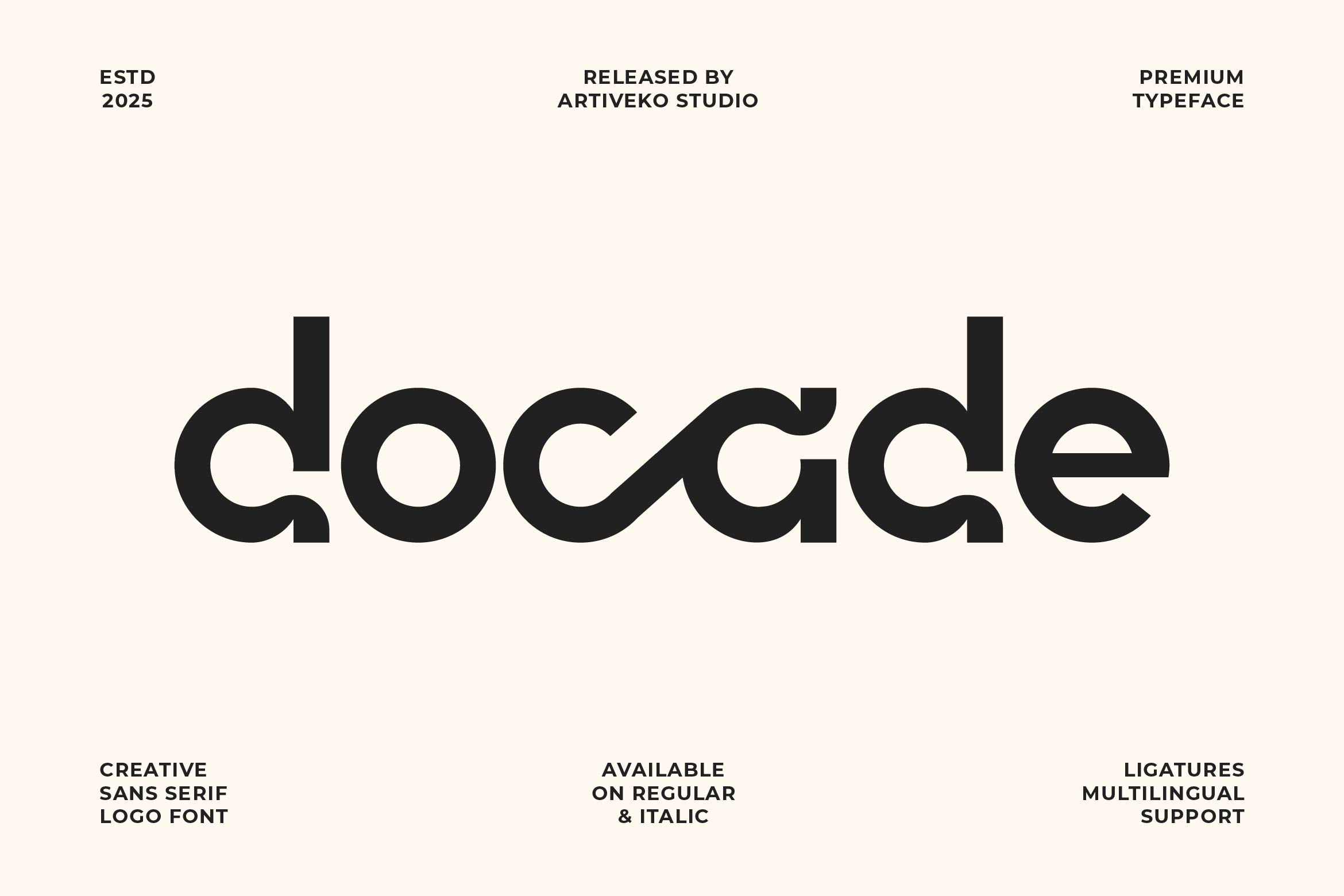
- Docade Modern Sans Font
Docade is a modern creative sans serif font designed to stand out with subtle quirks and clean precision. Featuring sleek lines, unexpected details, and a balanced geometric feel, Docade adds a fresh personality to any design. It’s perfect for branding, logos, posters, packaging, tech visuals, and editorial layouts that call for something stylish yet professional.
Crafted for visual impact and flexibility, Docade includes uppercase and lowercase characters, multilingual support, and a curated selection of ligatures and stylistic alternates. Whether you’re going bold in headlines or subtle in subtext, Docade adapts easily while retaining its unique identity.
From modern startups to creative agencies, Docade brings a smart, confident tone to your typography. Let your work feel clean, contemporary, and creatively sharp — with Docade, the sans serif font that’s made to express originality.